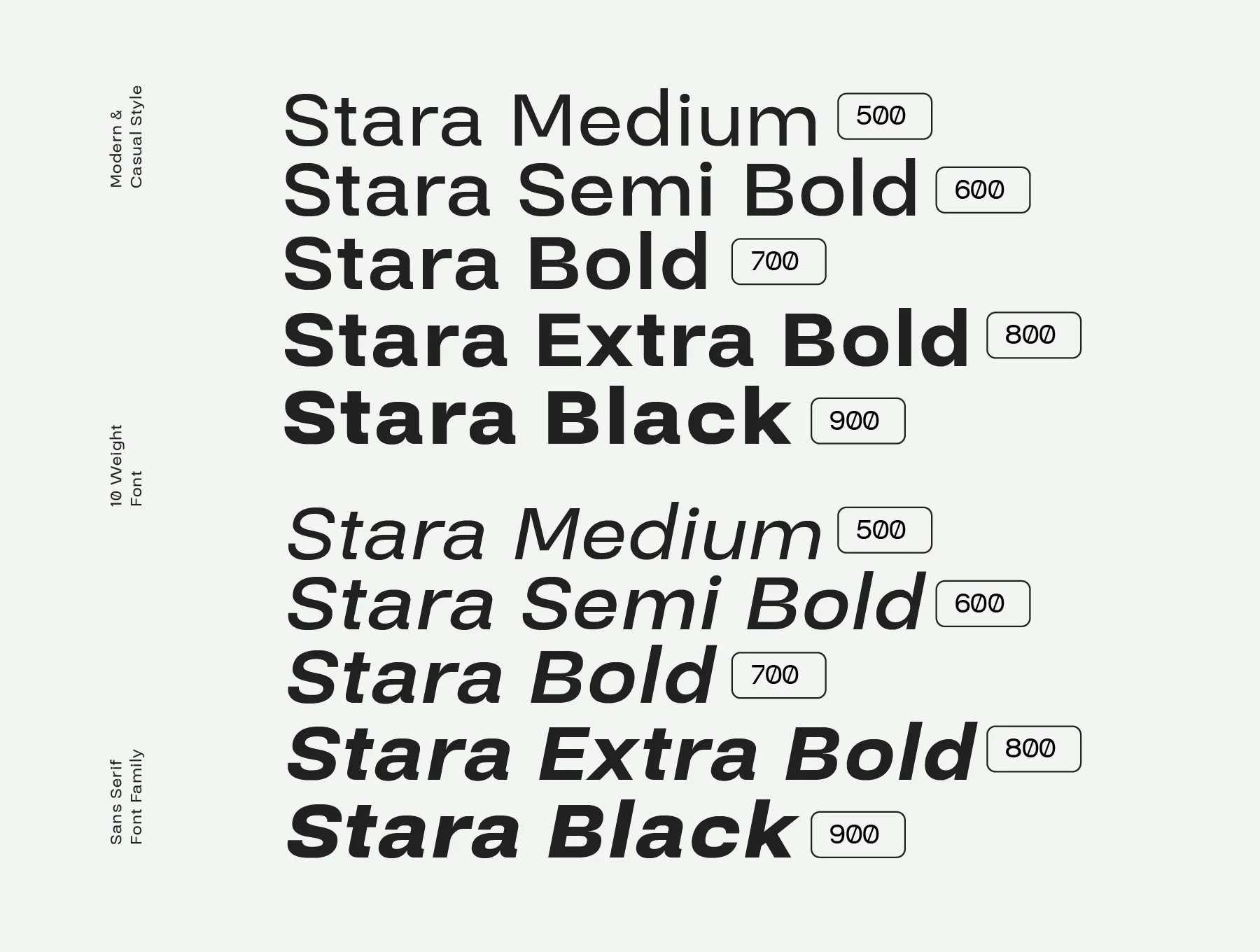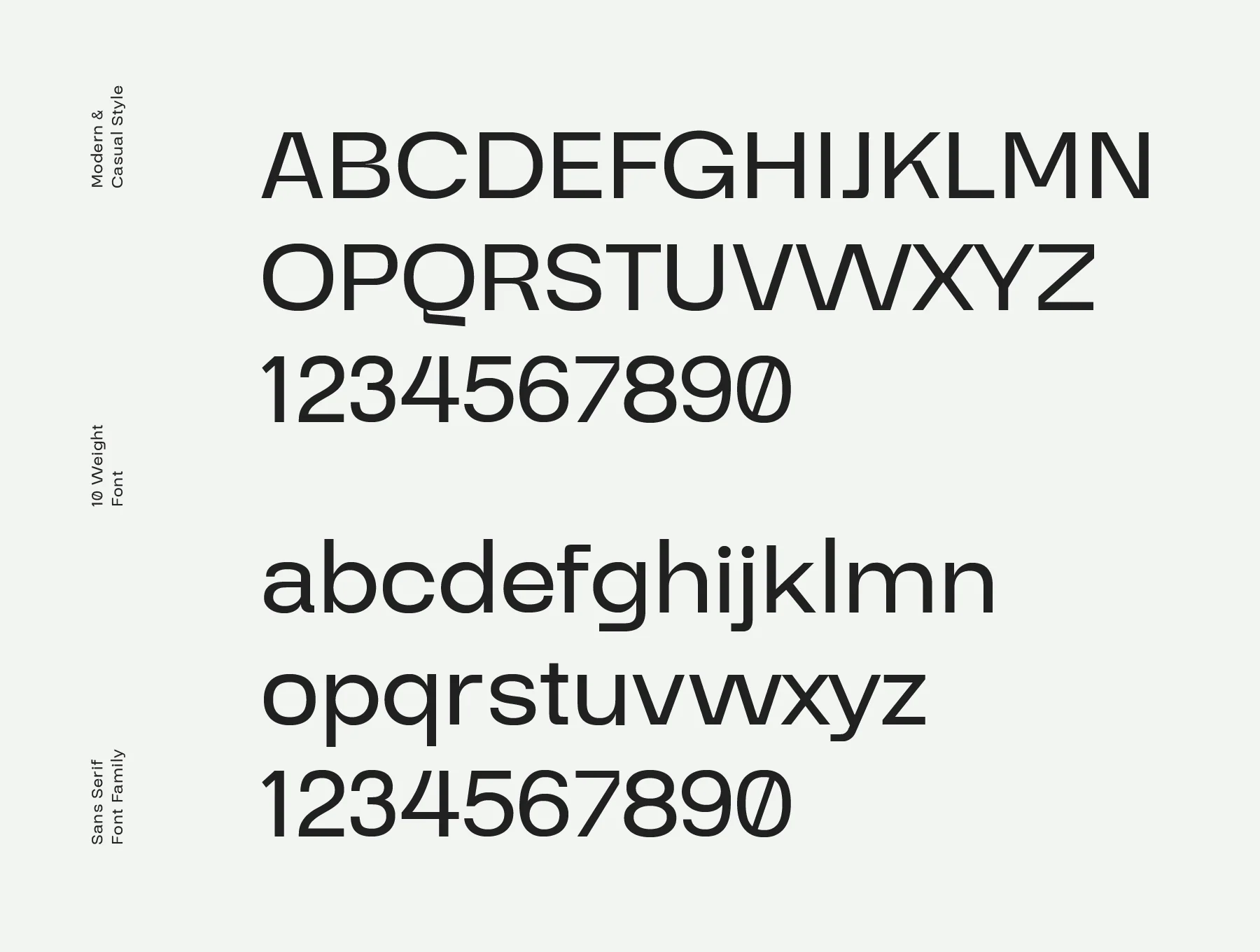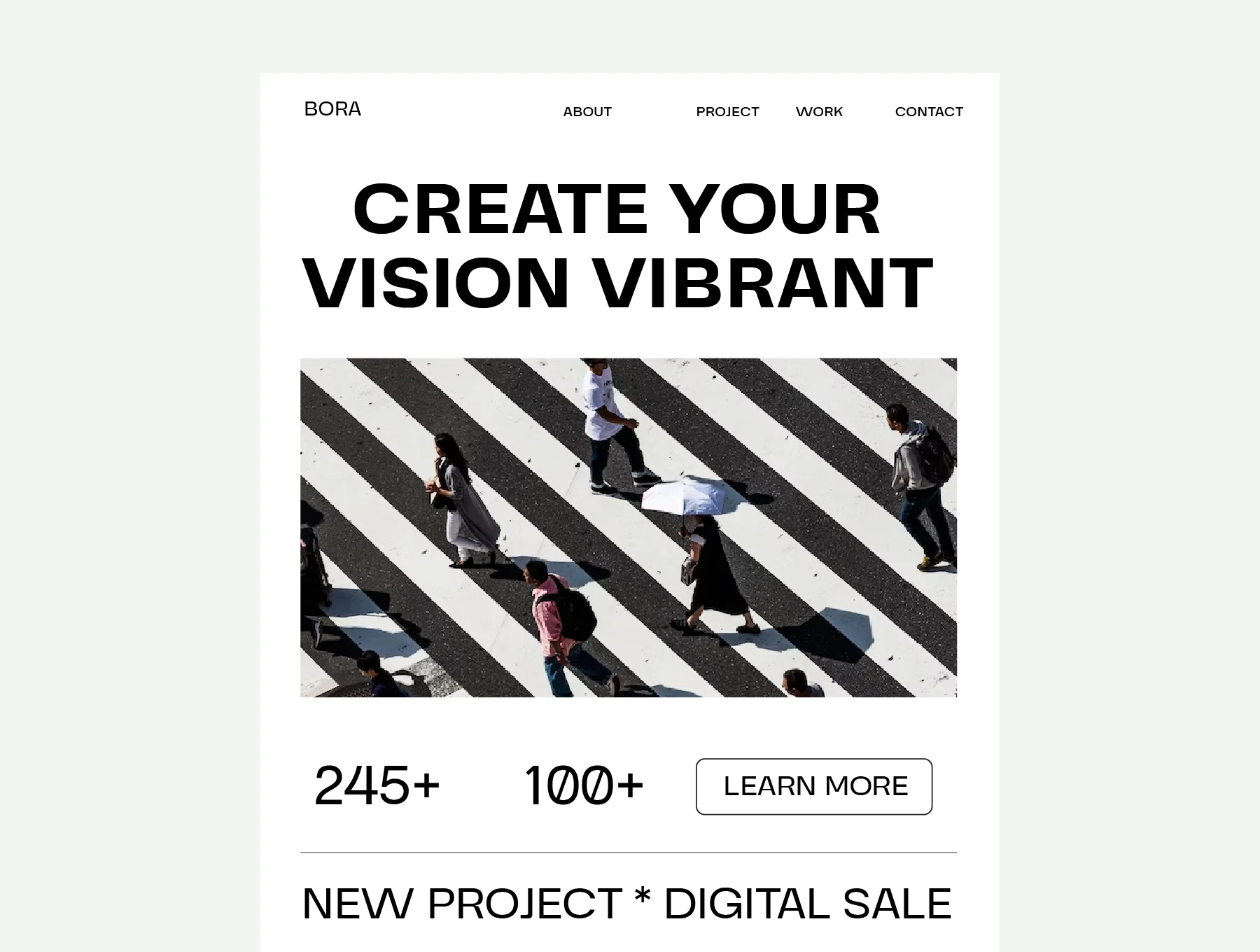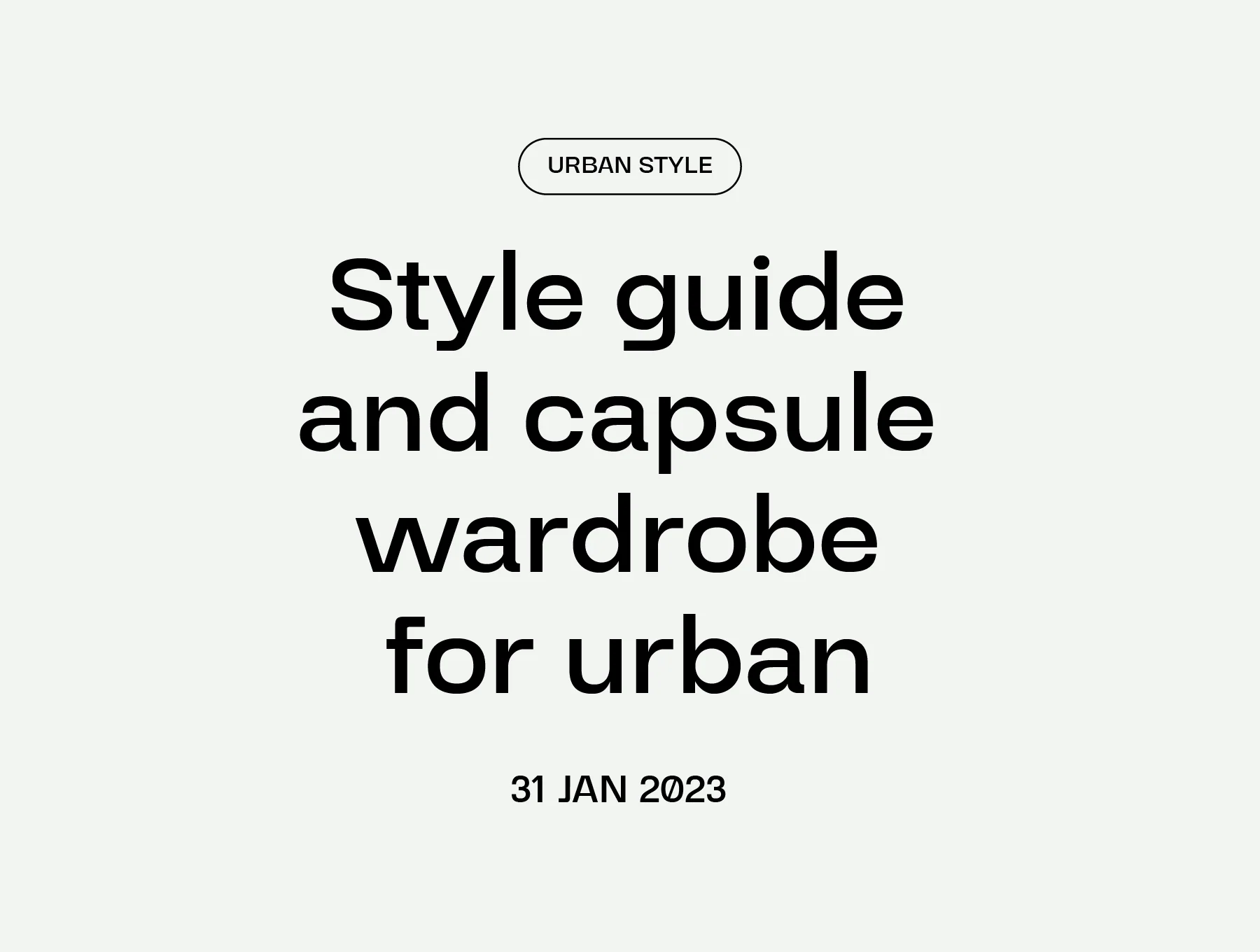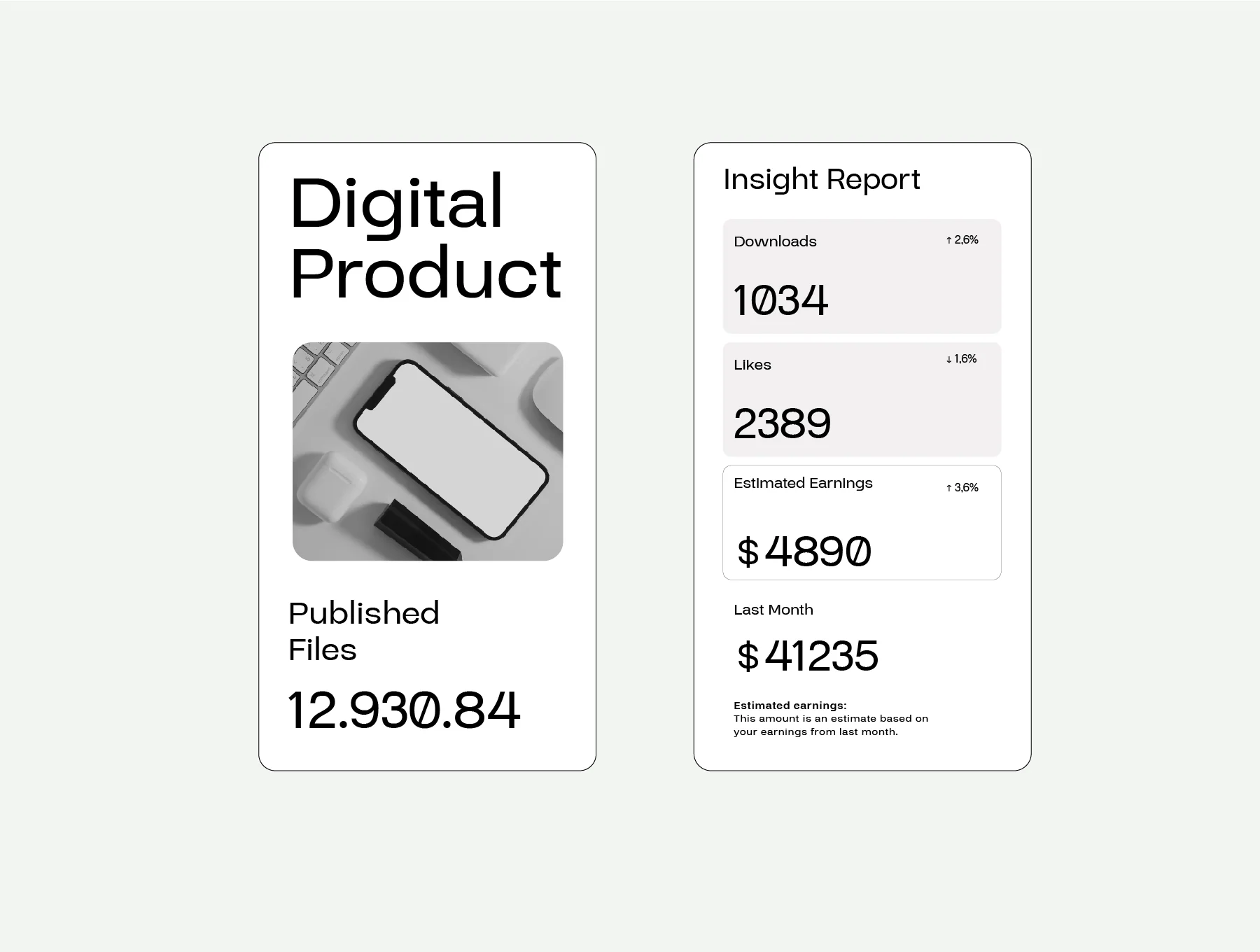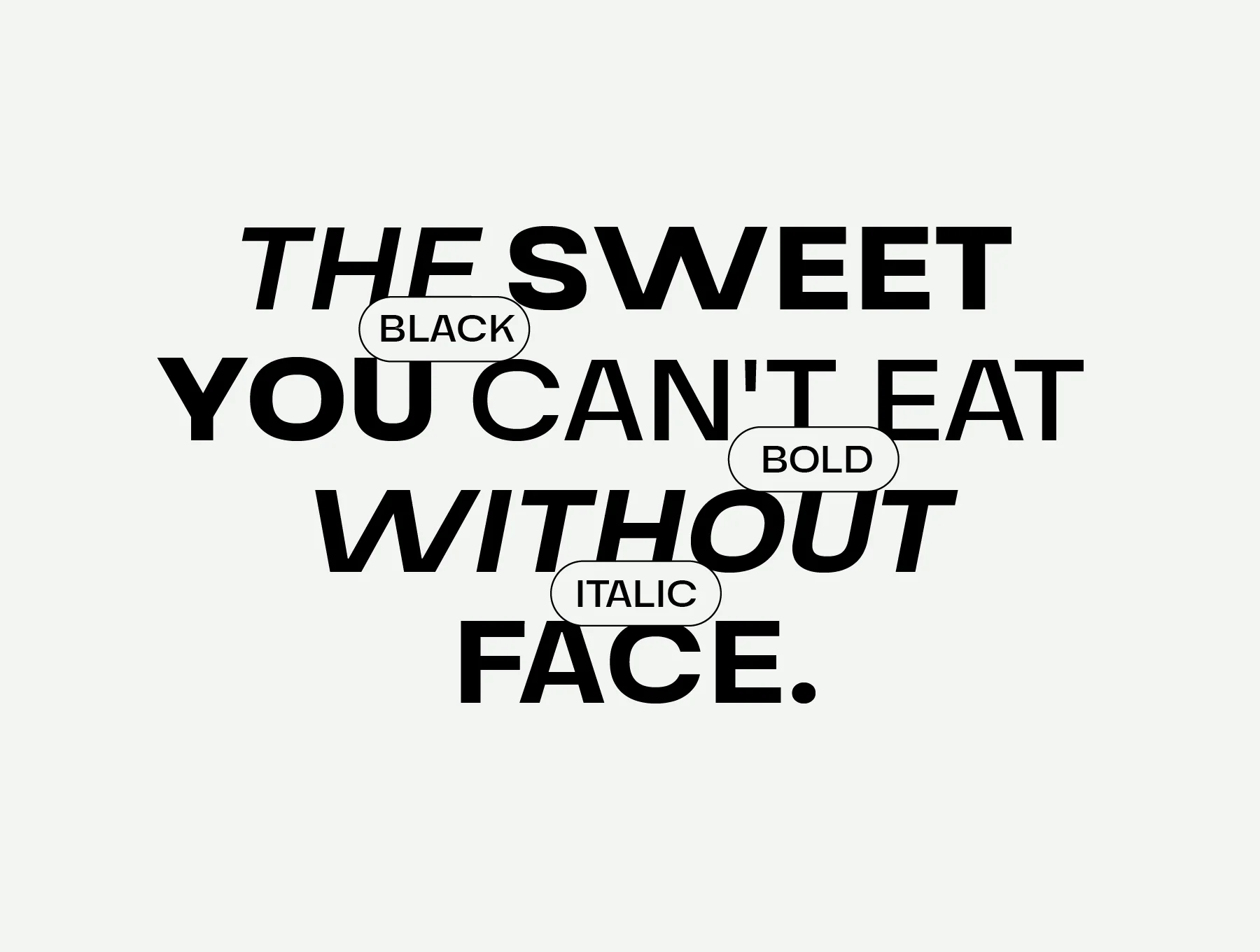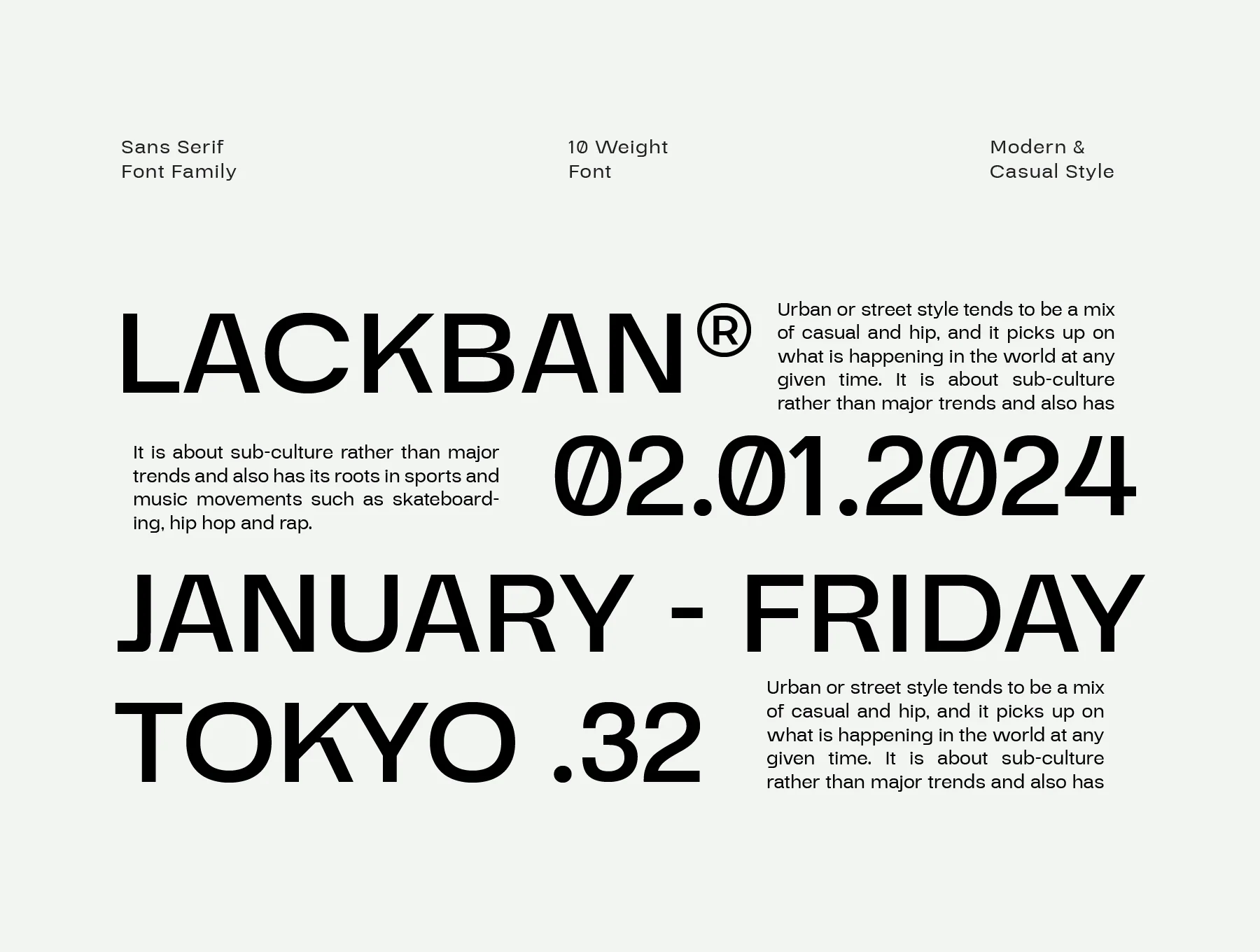
Stara Sans Serif Font
Stara is a sans serif font family blending clean simplicity with modern style.
Clean sans serif typeface set
Stara Sans Serif is a refined font family that blends minimal style with graceful appeal. Its crisp shapes and well-balanced forms create a contemporary, polished impression, while every character is crafted for strong readability. Ideal for logos, headings, body text, and digital screens, it adds a fresh, sophisticated touch to many designs.